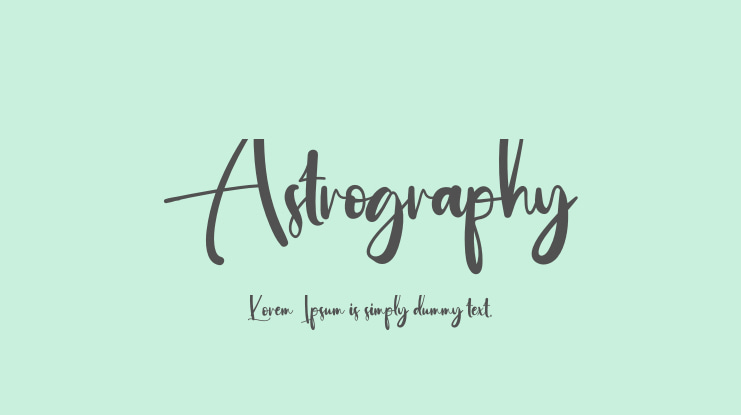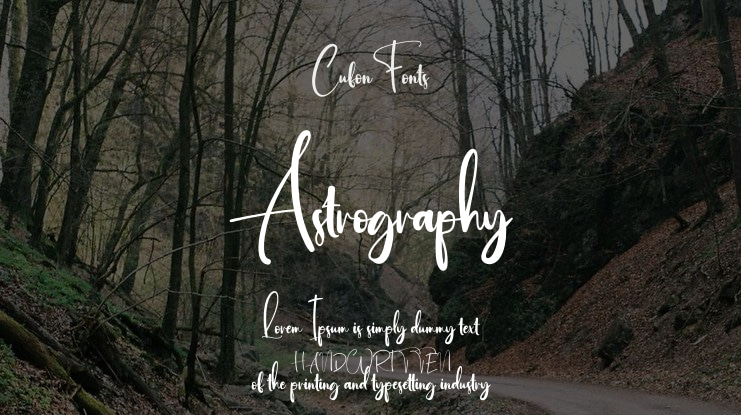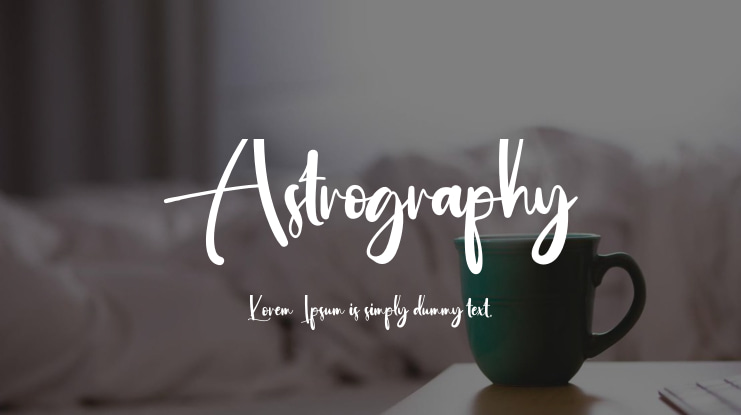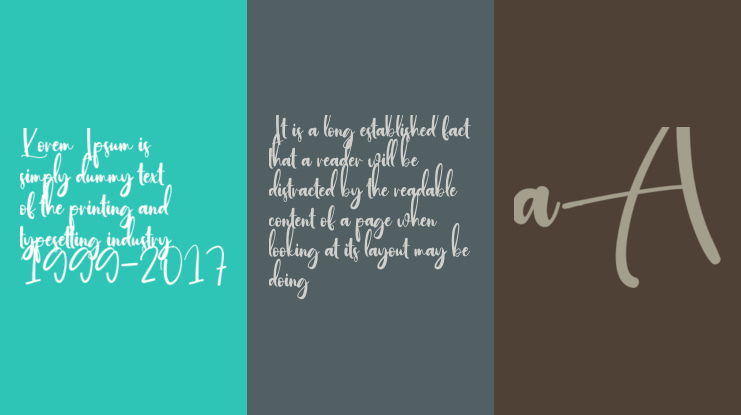
Our latest letter styles are ideal for various applications such as wall displays, wedding invitations, social media post logos, advertisements, product packaging, labels, photography, watermarks, invitations, stationery, and any project that requires elegant handwriting.